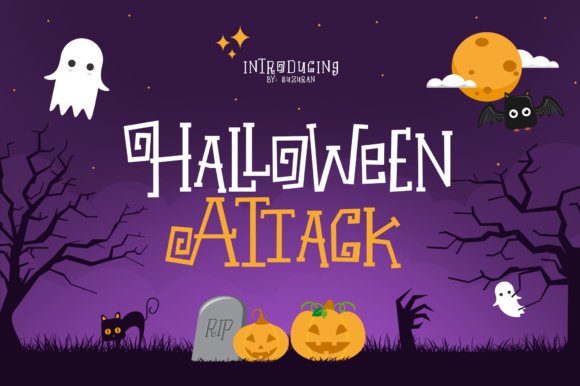
The Perfect Font for a Spooky Season
As the sun sets on a crisp autumn evening, the imagination runs wild. You’re brainstorming ideas for your next design project, and the thought of creating something that captures the essence of Halloween sends a shiver down your spine. It’s the perfect time to get creative and experiment with fonts that evoke the spooky and the unknown.
Enter the Halloween Attack Font, a display font designed specifically to bring a touch of Halloween magic to your designs. With its eerie, hand-drawn aesthetic, this font is perfect for creating invitations, posters, and other materials that scream “trick-or-treat!”
For designers looking to add a unique twist to their work, the Halloween Attack Font is a valuable tool. Its versatility and playful vibe make it an ideal choice for a wide range of projects, from party decorations to digital art. Whether you’re a seasoned pro or a design newbie, this font is sure to bring a howling good time to your creative endeavors.
Halloween Attack Font Key Features
- Font Family: Halloween Attack Font is a unique, hand-drawn font designed to evoke a spooky and playful atmosphere.
- Character Set: Includes a wide range of characters, including uppercase and lowercase letters, numbers, punctuation marks, and special symbols.
- Unique Characteristics: Features a mix of bold and delicate lines, with intricate details and textures, giving it a one-of-a-kind look that’s perfect for Halloween-themed designs, horror movies, and spooky atmospheres.
Halloween Attack Font Review
When I first laid eyes on the Halloween Attack Font, I was immediately drawn in by its ✨ bold, gothic-inspired design. The intricate details and textures add a level of depth and dimension that makes the font truly stand out. The font’s ✨ unique blend of horror movie and Halloween-themed elements is sure to appeal to fans of the spooky season.
From a design perspective, the font is well-structured and easy to read, even at smaller font sizes. The weight and line width are well-balanced, making it suitable for a variety of applications, from headlines to body text.
One of the main limitations of the Halloween Attack Font is its ✨ limited character set. While it includes a wide range of uppercase and lowercase letters, as well as numbers and basic punctuation, it falls short in terms of special characters and symbols. Additionally, the font may not be suitable for use in situations where a more neutral or subtle design is required.
- ✨ Limited character set
- ✨ May not be suitable for neutral or subtle designs
Overall, the Halloween Attack Font is a great choice for anyone looking to add a touch of spooky sophistication to their design. While it may have some limitations, its unique design and well-structured layout make it a great addition to any designer’s toolkit.
Use the Halloween Attack Font to add a spooky touch to your Halloween-themed designs.
Combine the font with other Halloween-themed elements, such as jack-o-lanterns, ghosts, and bats, to create a cohesive and eerie atmosphere.
Experiment with different font sizes, colors, and styles to achieve the desired level of spookiness.